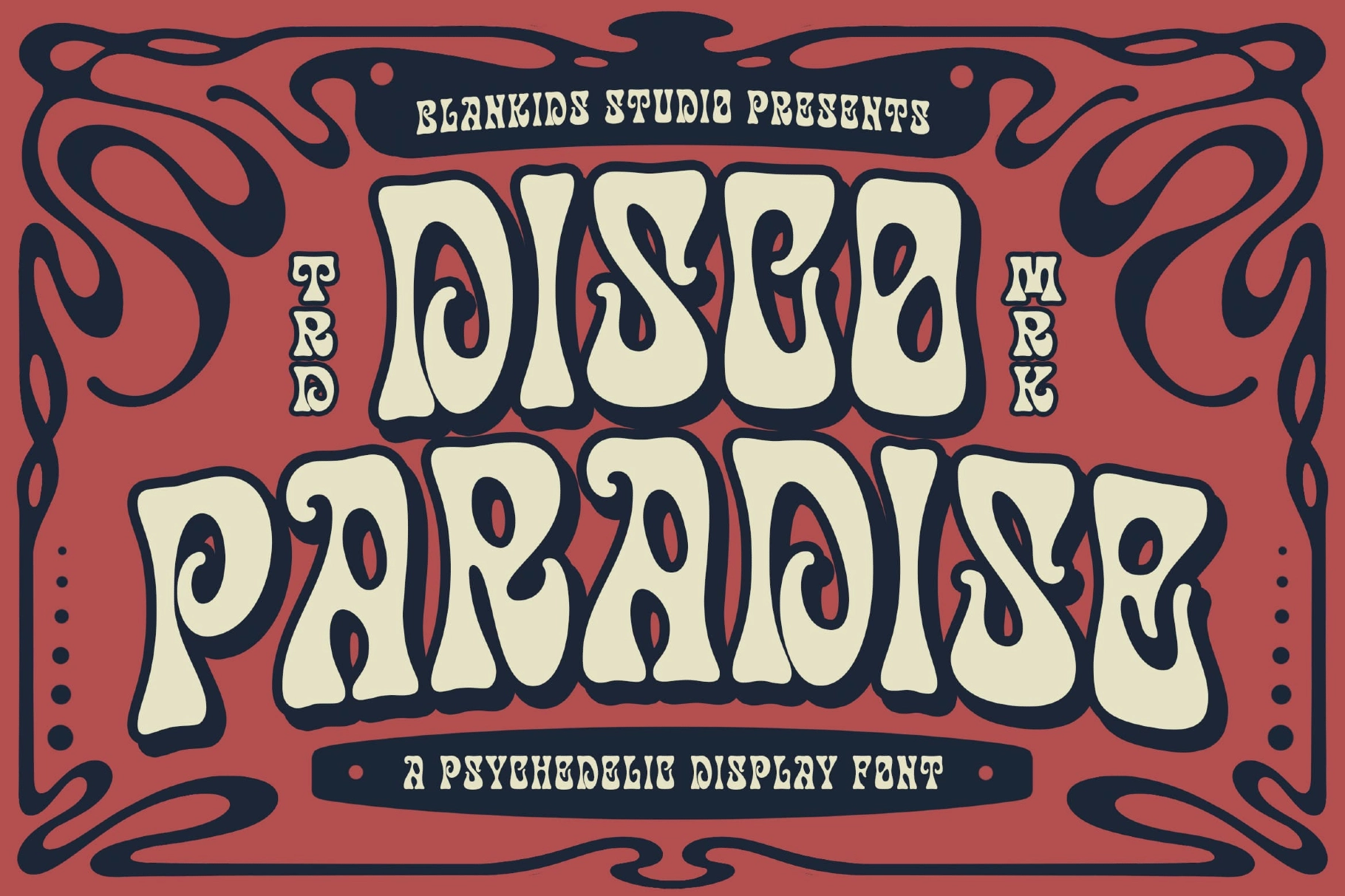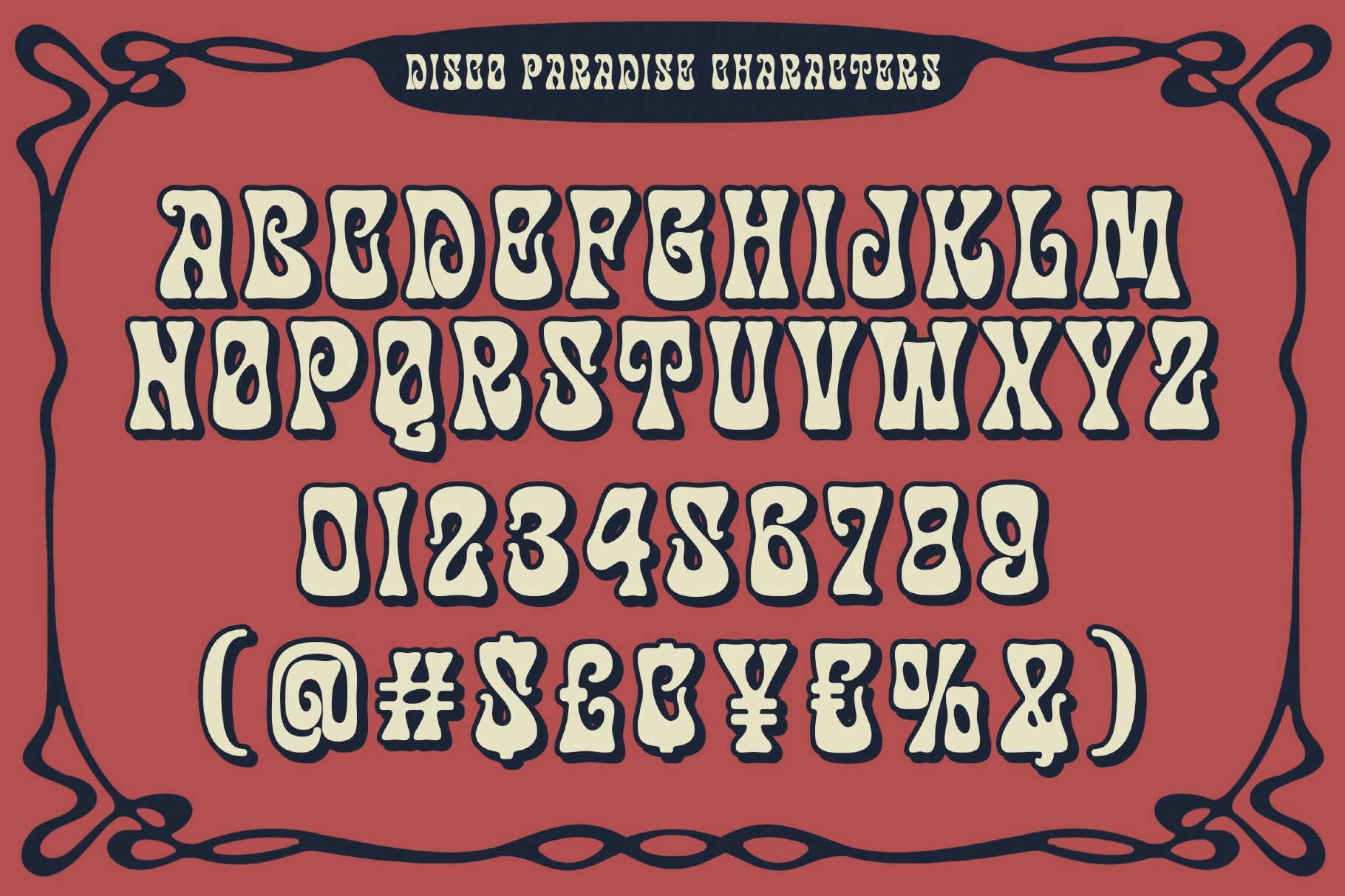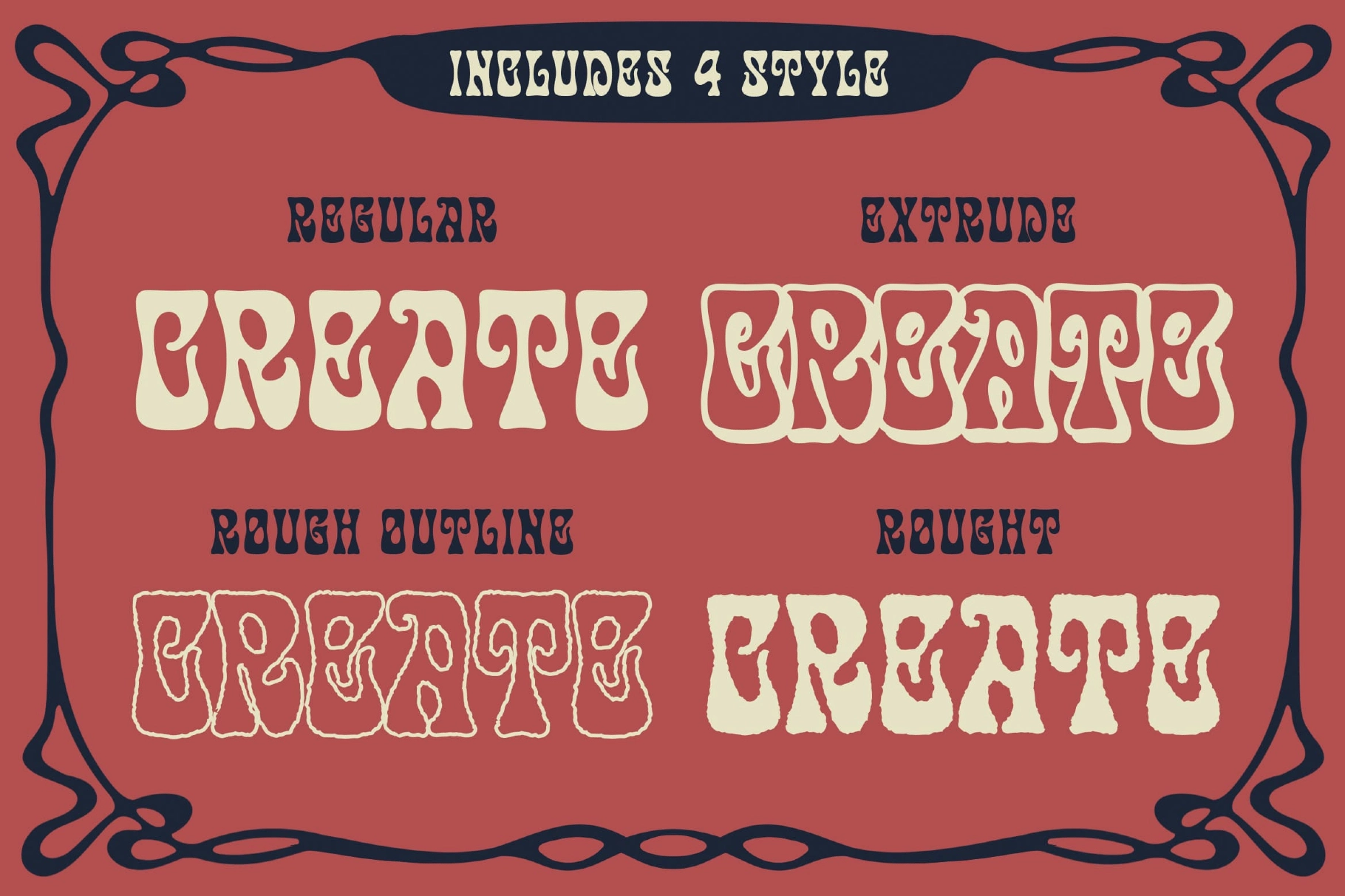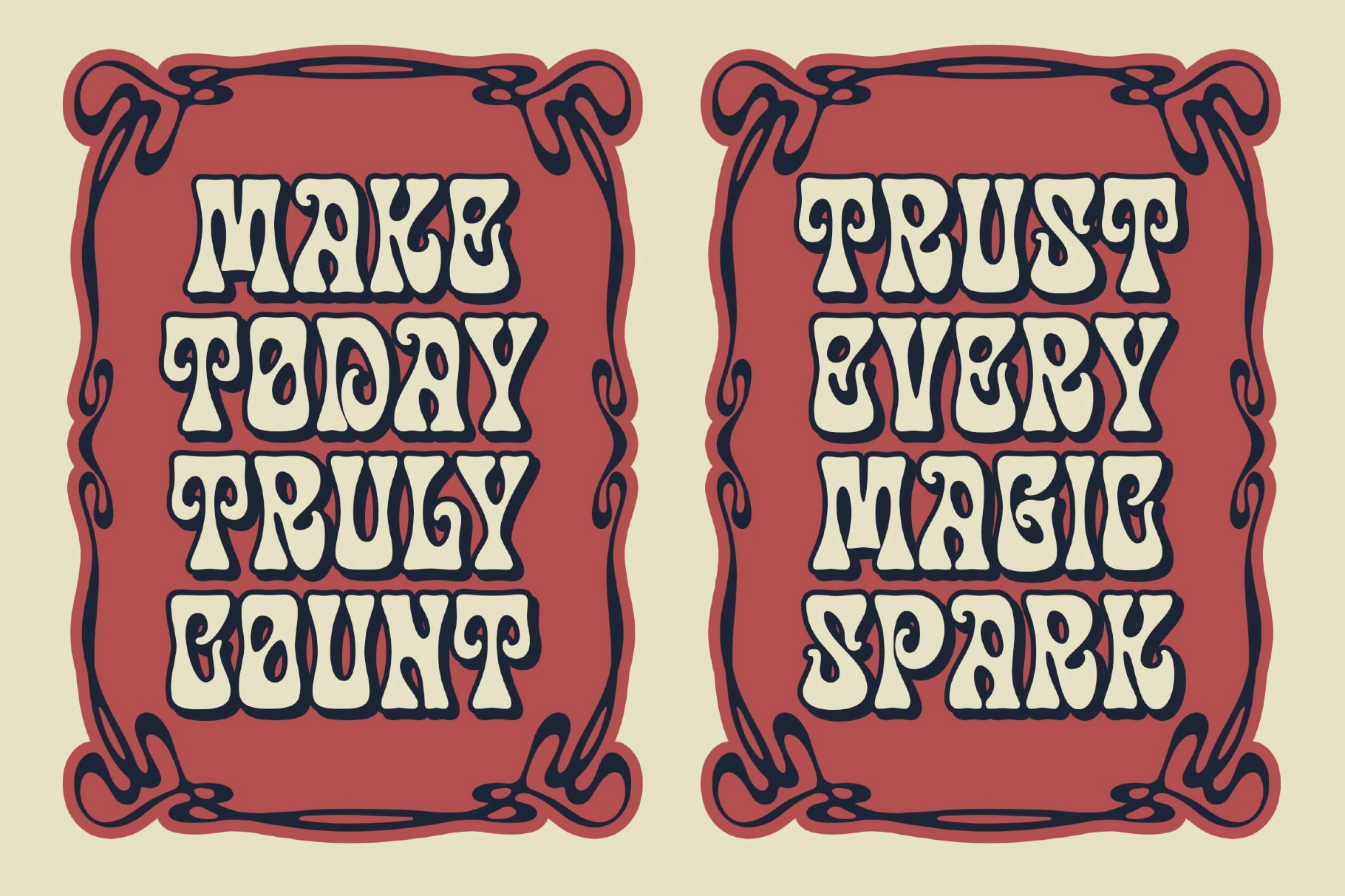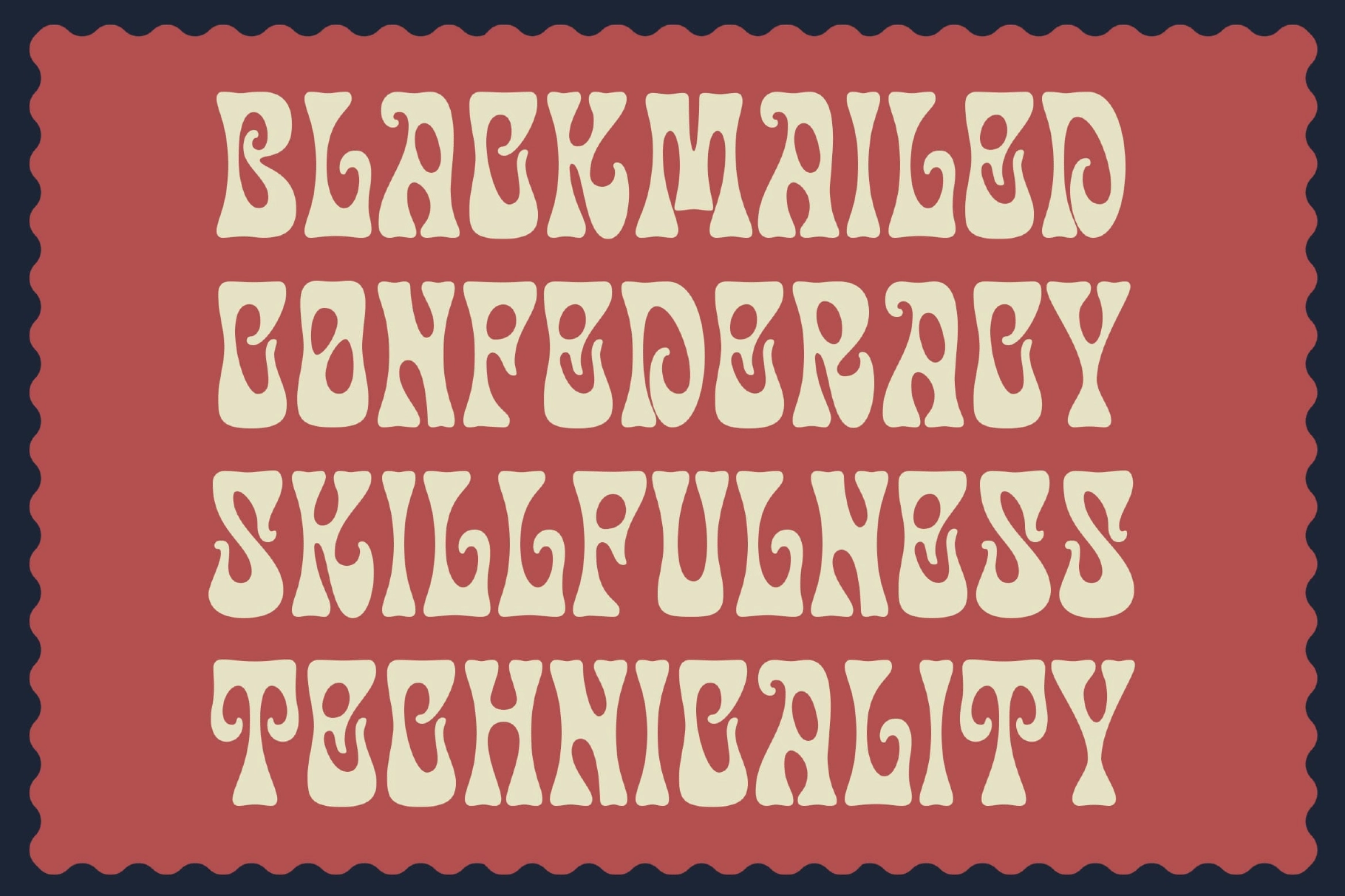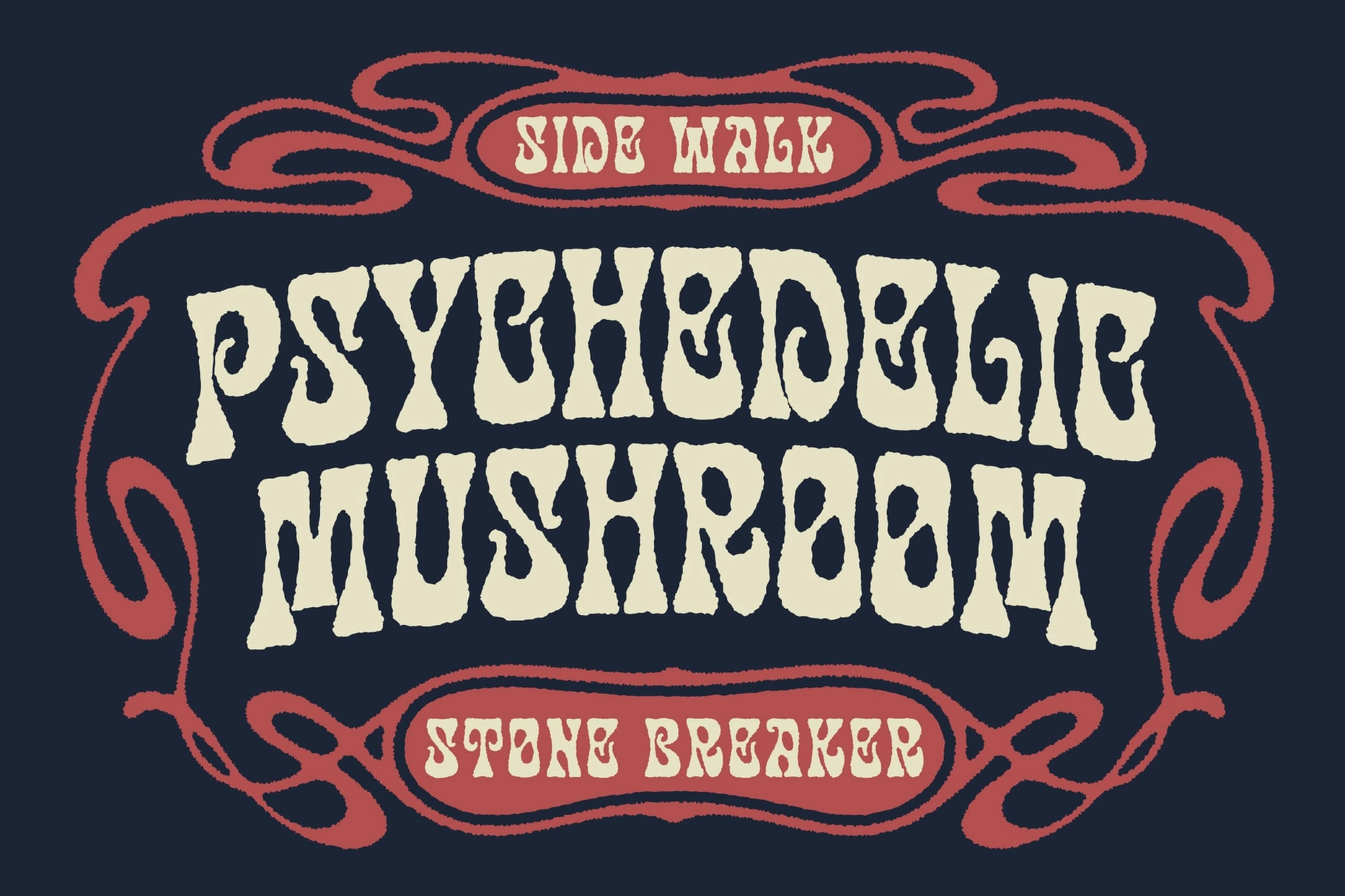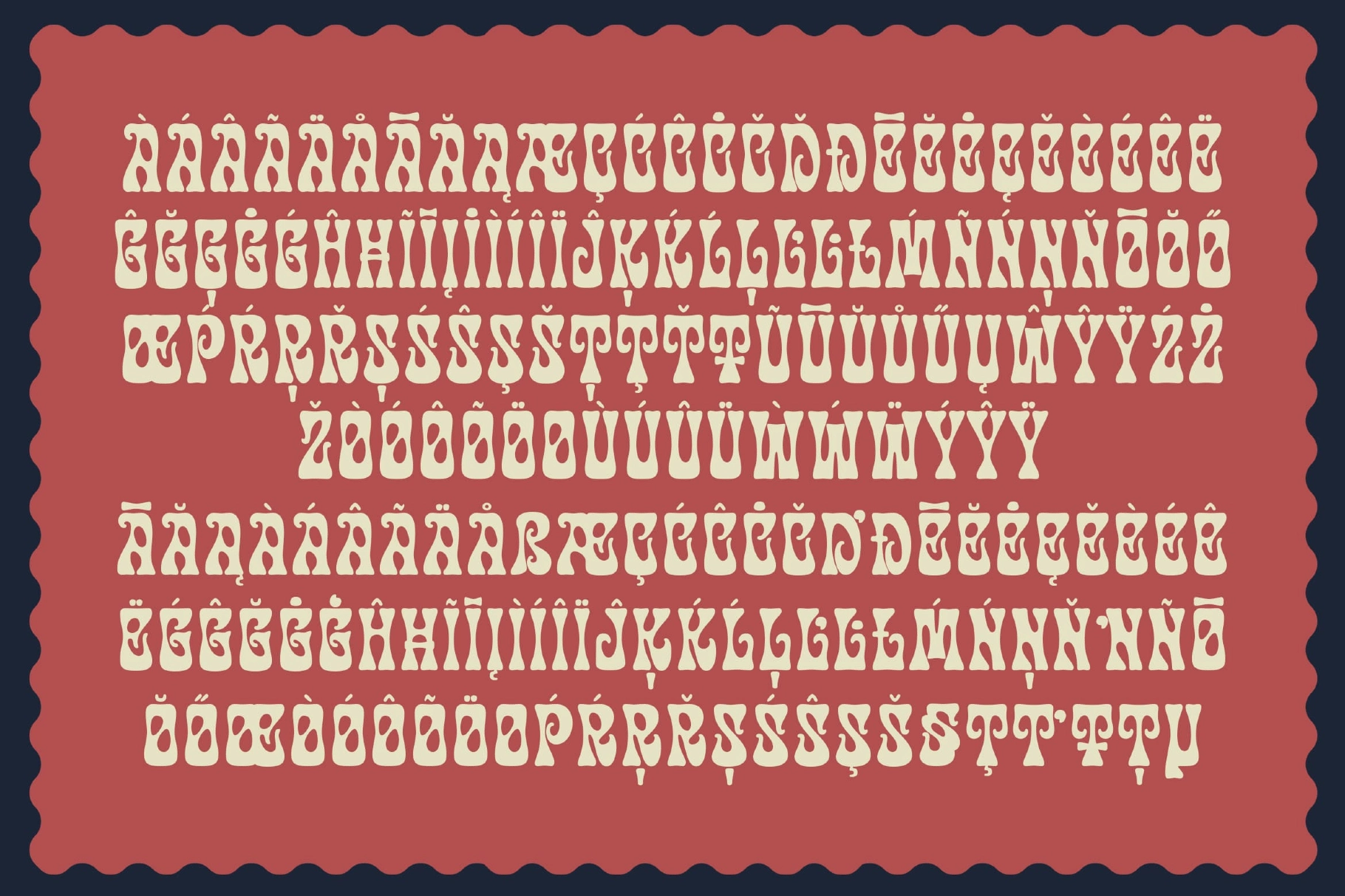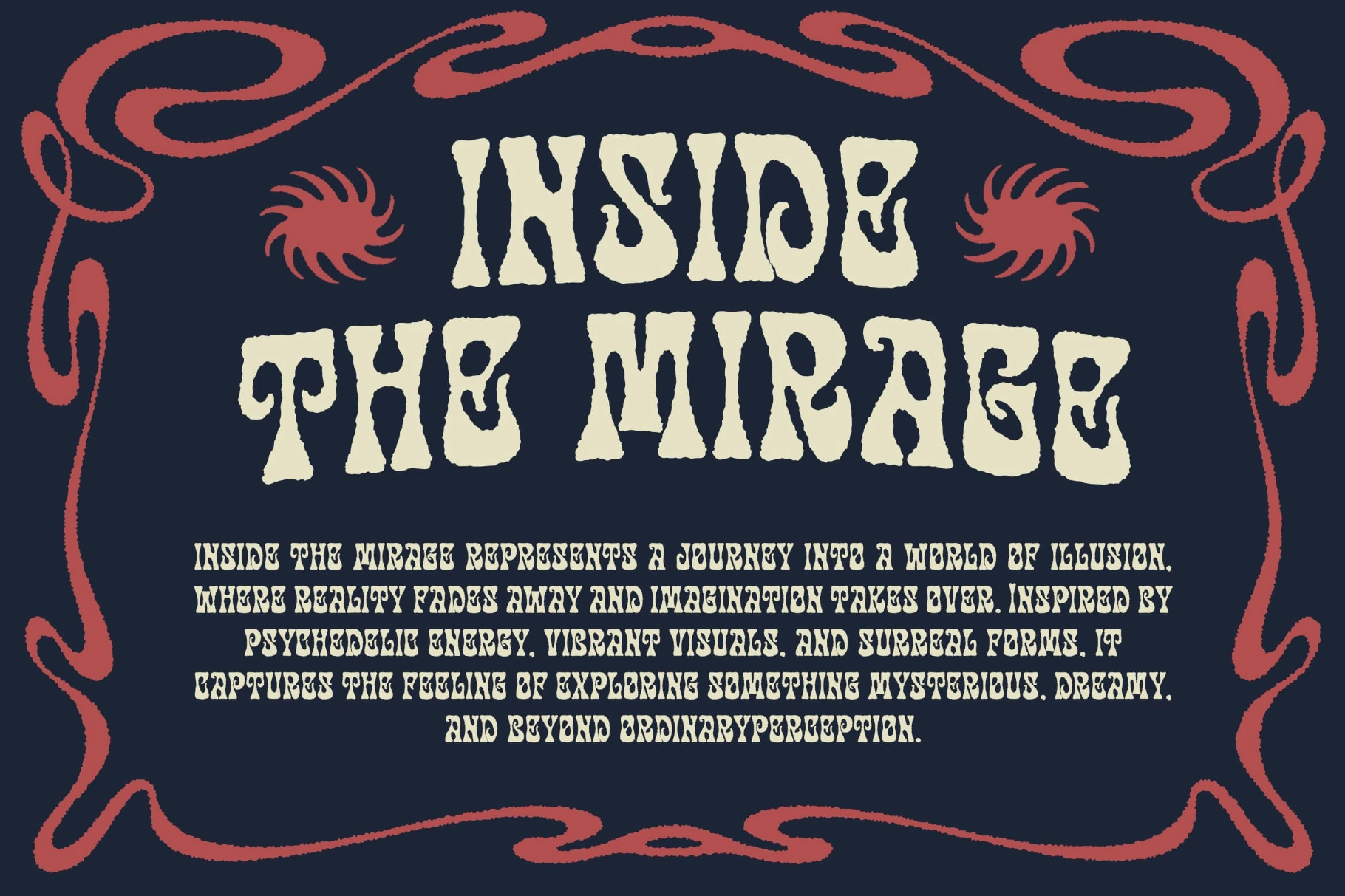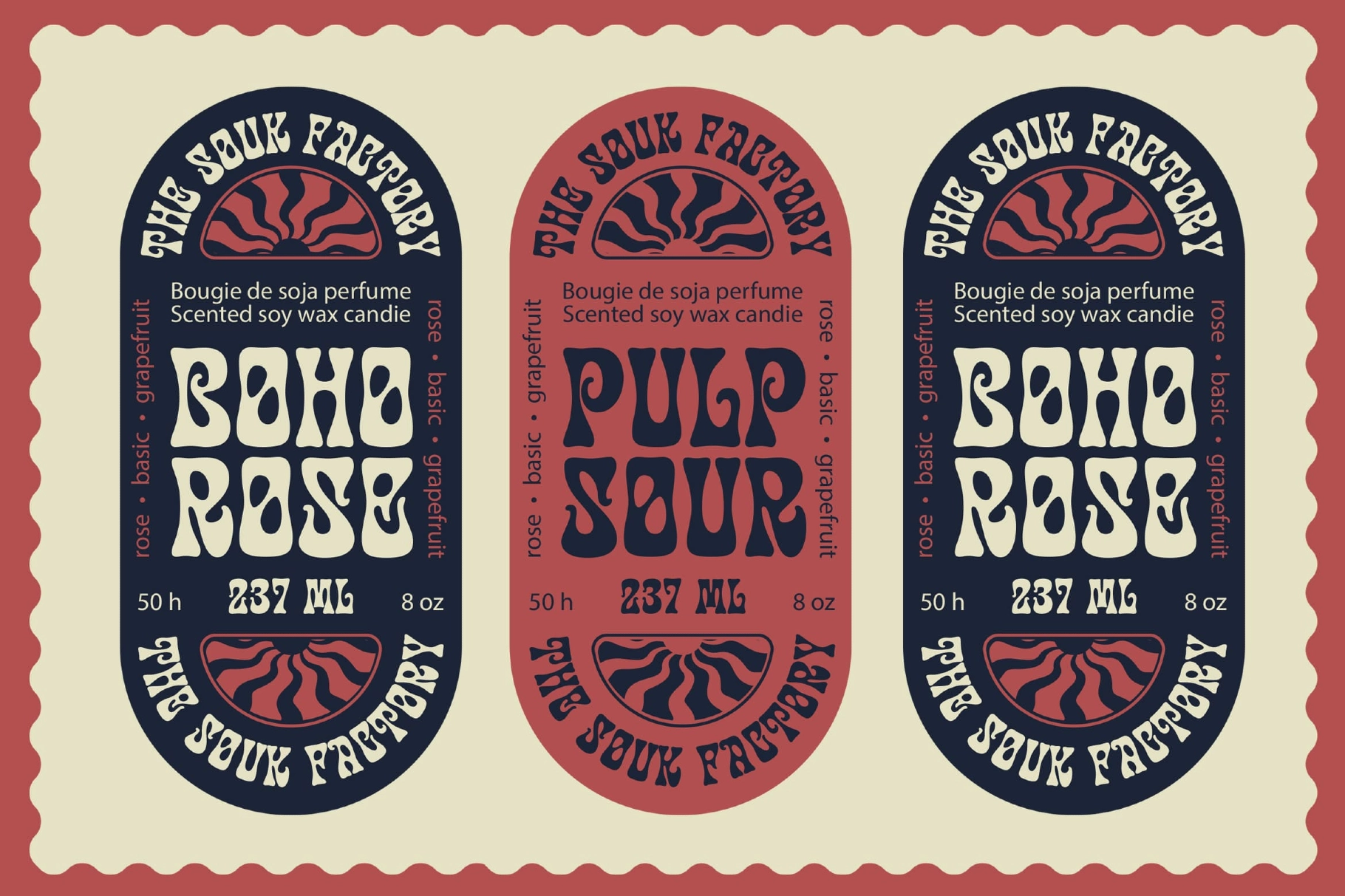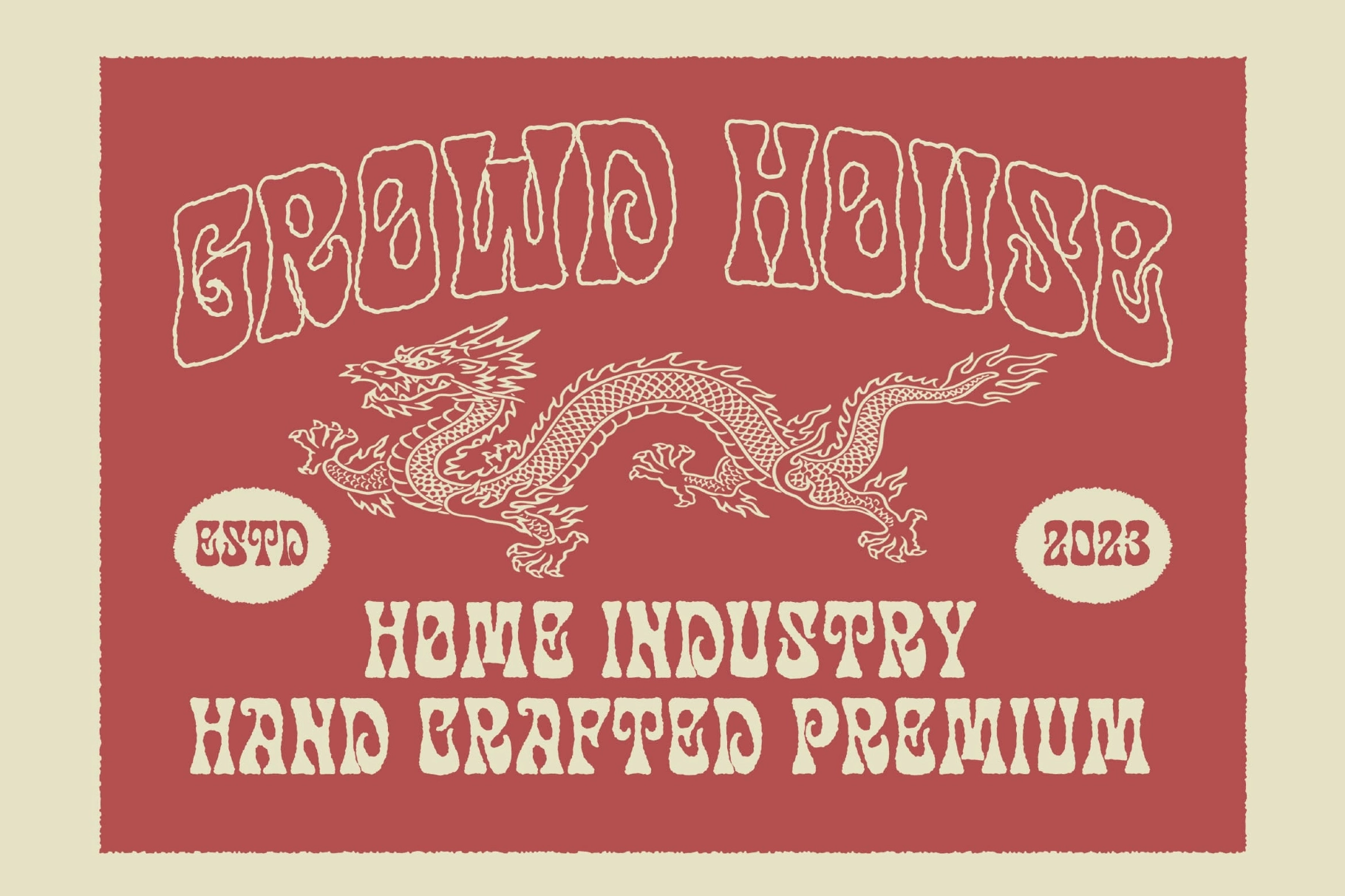
Disco Paradise – Groovy Psychedelic Display Font
Concert posters from the disco years liked to make even their signage dance, and Disco Paradise keeps that same warped, groovy display font energy — thick swirling strokes, bulging counters, and a wavy baseline that never sits flat for long. Ball terminals and psychedelic curls push every letterform toward motion, closer to a hand-painted marquee than a static typeface. Four cuts — Regular, Extrude, Rough, and Rough Outline — let the same groovy skeleton switch between clean disco-ball shine and hand-worn screen-print texture.
Use it for retro record labels, disco-themed branding, vintage boutique logos, concert posters, festival flyers, vinyl sleeve art, cassette tape covers, retro snack packaging, and vintage-styled merch prints.
- 4 styles: Regular, Extrude, Rough, Rough Outline;
- uppercase only, all-caps display;
- numerals, punctuation & currency symbols;
- multilingual support.